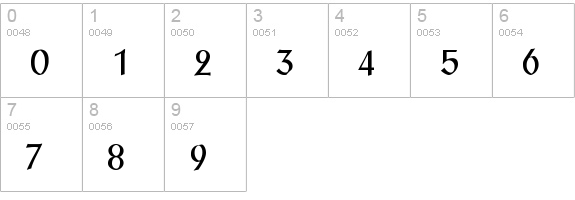
Post-Antiqua (R) Regular Font Details
Post-Antiqua (R) Regular is the standard, neutral variant in the Post typeface family \xE2\x80\x94 well suited to general body text, paragraphs, and standard typographic work.
Post-Antiqua (R) Regular font is a timeless and classic typeface that exudes elegance and sophistication. Its clean lines and balanced proportions make it perfect for a wide range of design projects, from branding to editorial layouts. The font strikes the perfect balance between tradition and modernity, making it a versatile choice for both print and digital applications. What sets Post-Antiqua (R) Regular font apart is its exceptional readability and versatility. Whether used for body text or headlines, this font conveys a sense of professionalism and refinement. Its subtle details and intricate letterforms add a touch of sophistication to any design. One of the best parts about Post-Antiqua (R) Regular font is that it is available for free download at FontsMarket.com. This means that designers and typographers can easily access and use this high-quality font without breaking the bank. With its combination of style, readability, and accessibility, Post-Antiqua (R) Regular font is a must-have for anyone looking to elevate their design projects.